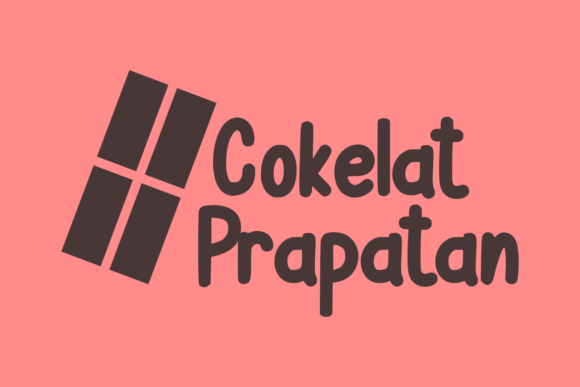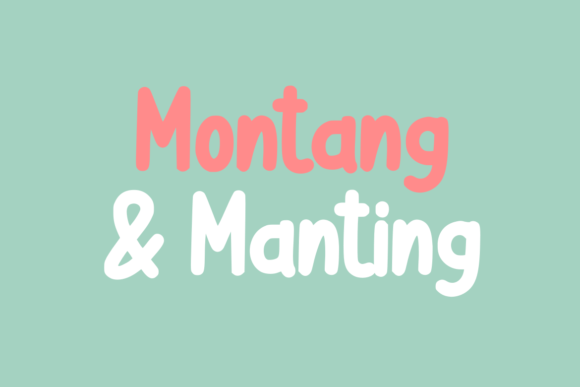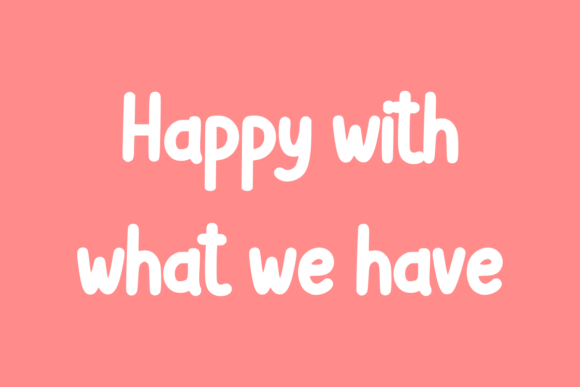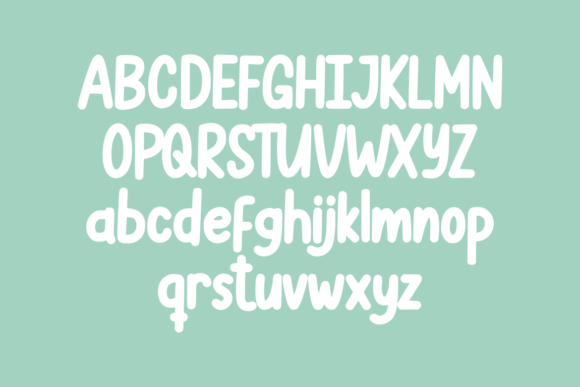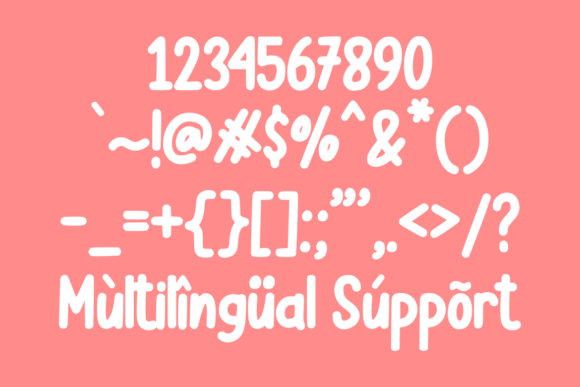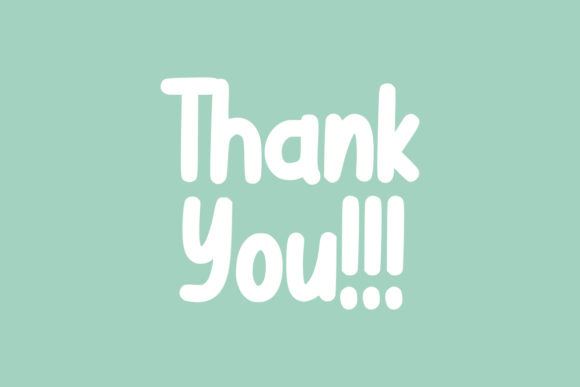
Introduction to Rembes Font
Rembes is a fun and friendly display font.
Key Features of Rembes Font
Why Choose Rembes Font?
Rembes Font offers exceptional quality and versatility, making it a valuable addition to your design toolkit. Whether you’re creating for personal projects or commercial use, Rembes Font delivers professional results.